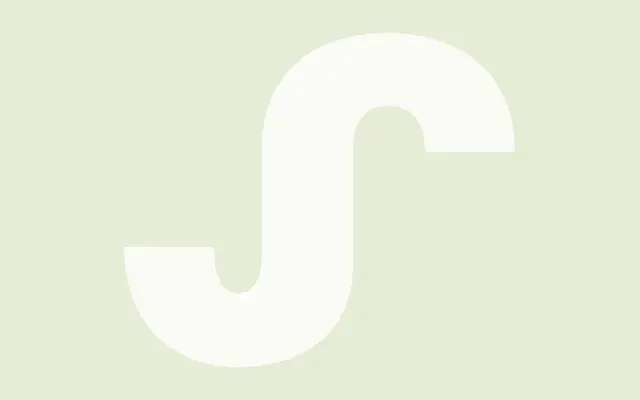
CA Saygon Display
Cape Arcona · Thomas Schostok, Stefan Claudius
A display sans conceived from a corporate project that never launched, shaped by a deliberate tension between individual rebellion and typographic uniformity.
Designed by Thomas Schostok and Stefan Claudius, CA Saygon Display grew out of hundreds of discarded sketches during an unrealised corporate identity project. The three-weight family uses unconventional letterforms intended to make visible the fractures of a postmodern society, while still cohering as a usable typeface. Spacing and kerning were handled by Igino Marini using iKern, and the glyph set covers Latin Extended, Cyrillic and Vietnamese with a full complement of OpenType features including fractions, superiors and stylistic alternates.
Classified by the foundry as sans serif, but its origins in expressing postmodern rupture and its deliberately idiosyncratic letterforms place it firmly in the display category rather than functional sans territory.